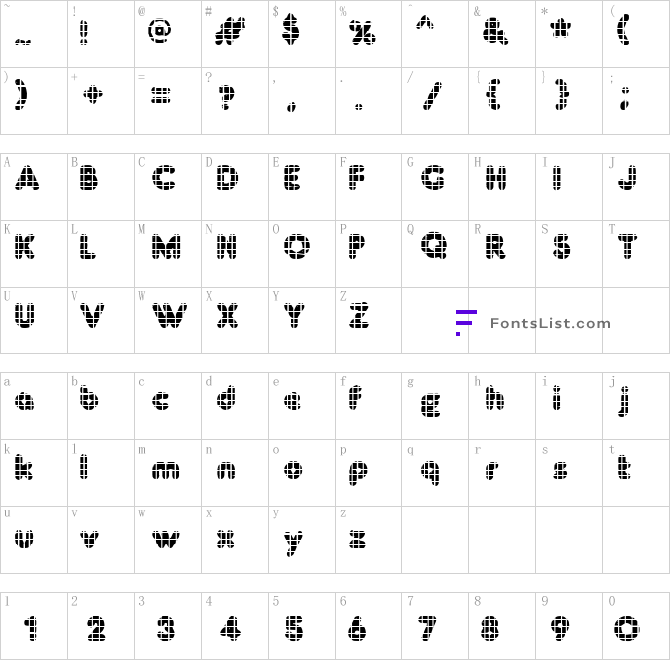
- Font Name:AnniesGrids
AnniesGrids.ttf is a very beautiful artistic font, AnniesGrids.ttf is widely used in the design and printing of various books and pictures,AnniesGrids.ttf has a strong visual impact,AnniesGrids.ttf is a commonly used font in newspapers, magazines and books, and is used in posters, e-commerce Poster design, store design, logo design, font design and other fields.AnniesGrids.